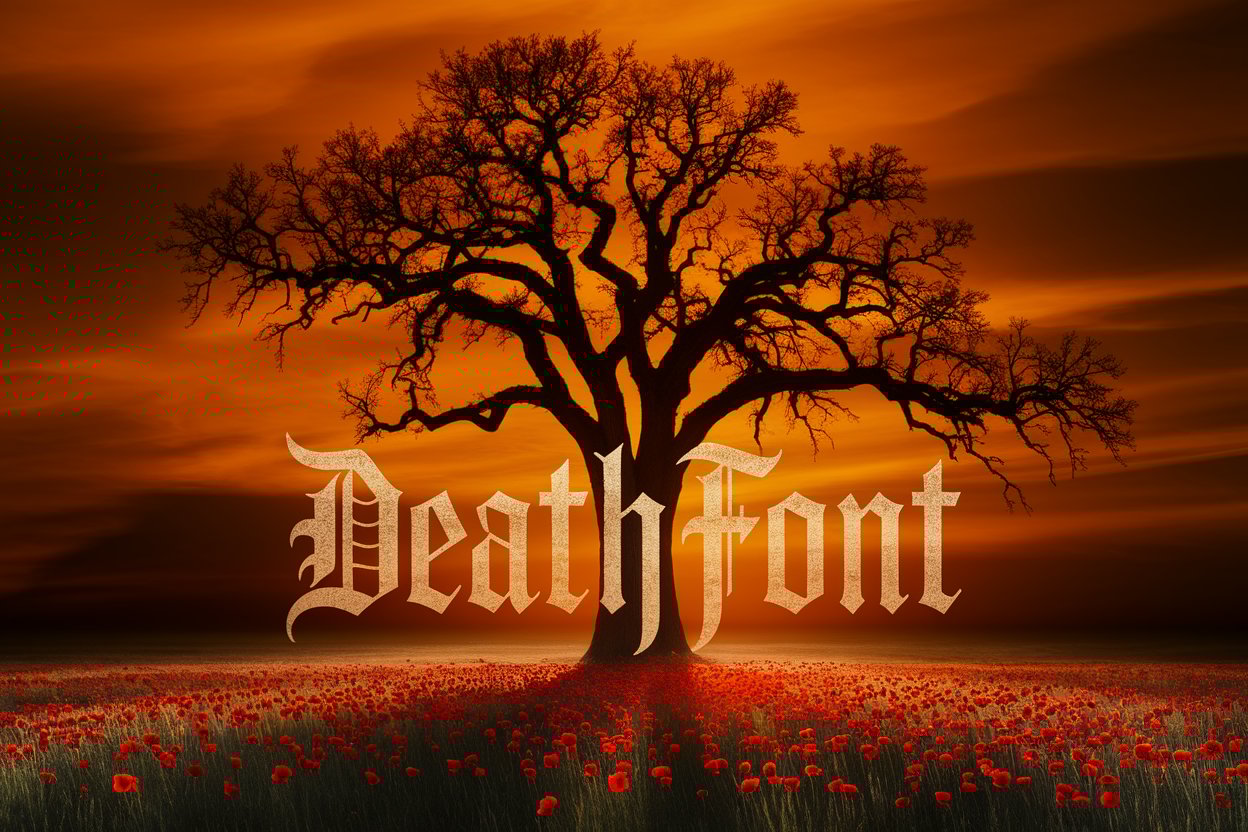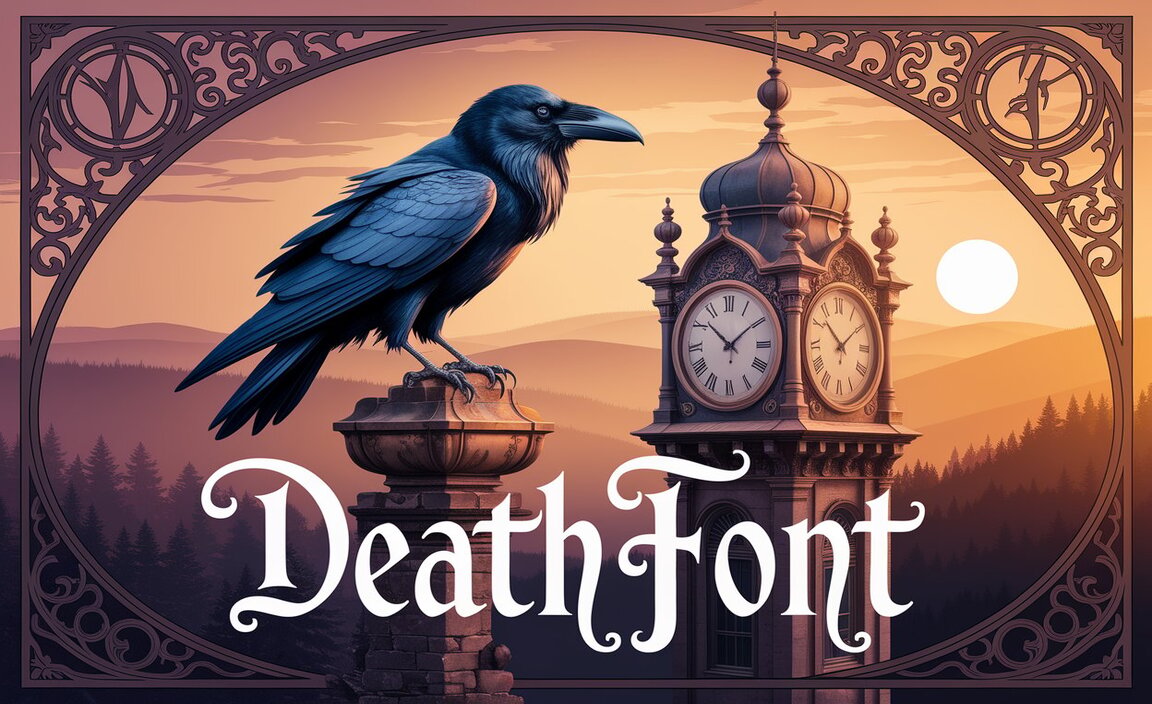
If you’re looking for a bold and edgy font for tattoos, street art, posters, or branding, Death Font by Joshua1985 is a must-have. This decorative, gothic typeface blends elements of vintage, retro, and modern fonts, making it a versatile choice for many design projects. Whether you’re creating printed materials, a website, or a tattoo design, this font adds a unique and dramatic touch to your text.
Why Choose Death Font?
- Distinctive Style – Perfect for tattoos, posters, and branding.
- Bold & Edgy – Ideal for modern, retro, and western designs.
- Inspired by Gothic & Calligraphy Fonts – A scary yet artistic look.
Death Font Family & Styles
| Font Family | Style | Best Use Case |
| Death Font | Regular | Tattoos & Posters |
| Fort Death Font | Bold | Street Art & Branding |
| Gothic Calligraphy | Script | Retro & Vintage Designs |
| Scary Western | Blackletter | Horror-Themed Projects |
| Vintage Script | Decorative | Logos & Merchandise |
Where To Use Death Font?
- Tattoos & Body Art – A favorite for tattoo artists and ink designs.
- Street Art & Graffiti – Creates a rebellious and unique visual appeal.
- Posters & Banners – Stands out in marketing and event promotion.
- Website Headers & Graphics – Gives a bold and distinct identity.
- Merchandise & Branding – Works well on t-shirts, accessories, and logos.
3.How Does Death Font Compare To Similar Fonts?
Death Font shares similarities with Fort Death Font, Gothic Calligraphy Fonts, and Western Fonts. These script fonts offer vintage and retro styles, making them ideal for tattoos, merchandise, and posters.
6.What Are The Best Uses For Death Font?
Death Font is perfect for tattoos, posters, branding, and gothic-themed designs. Its black, bold strokes make it stand out in street art, calligraphy, and decorative text applications.